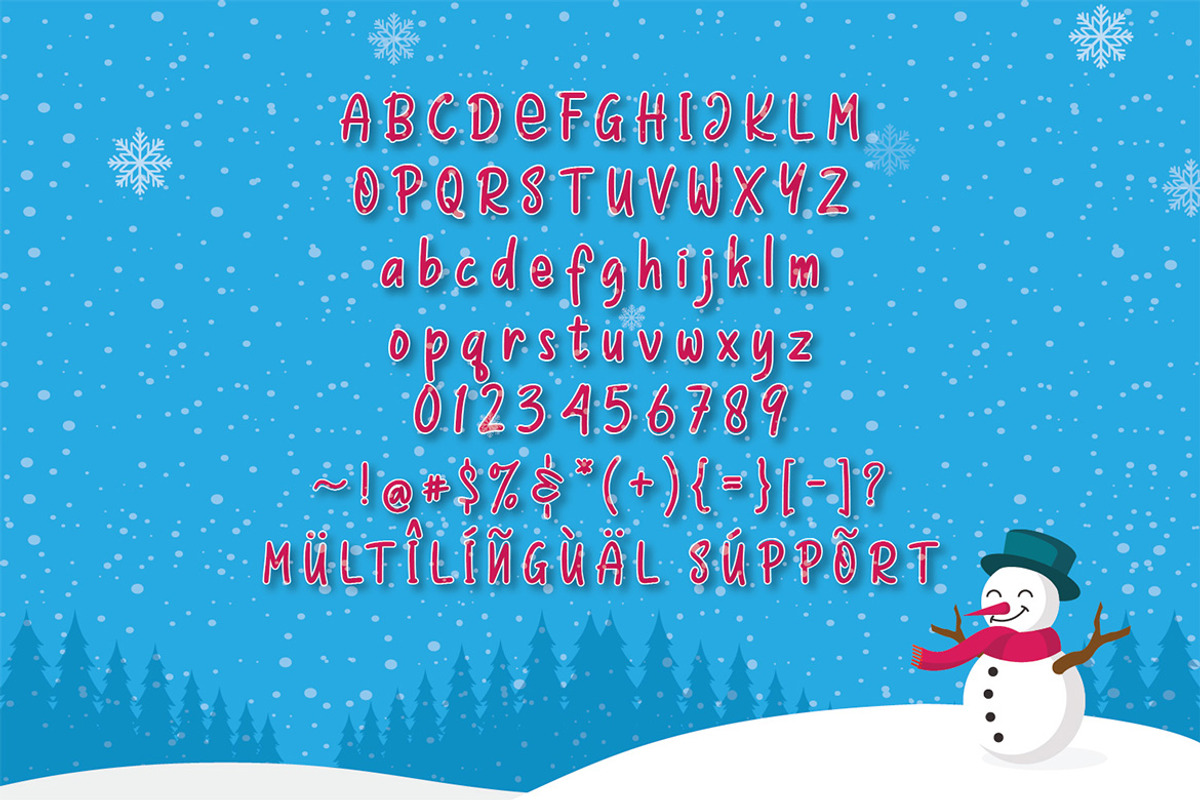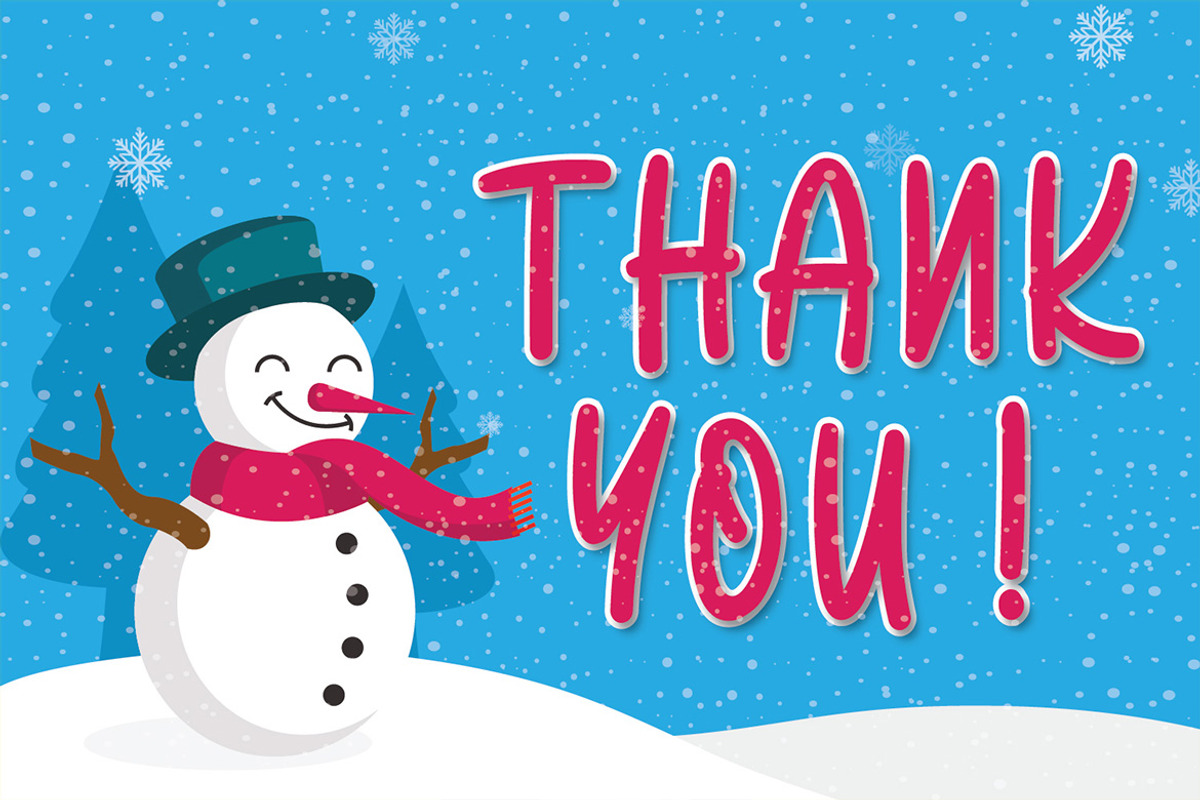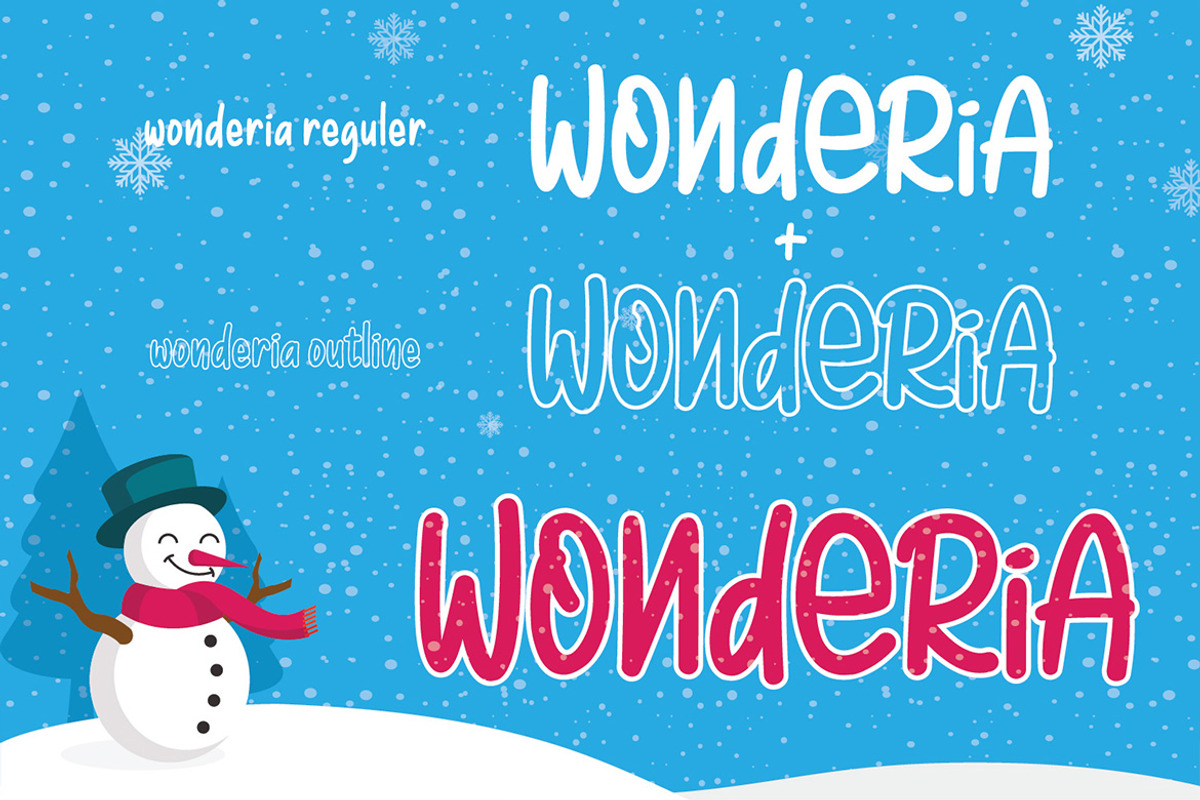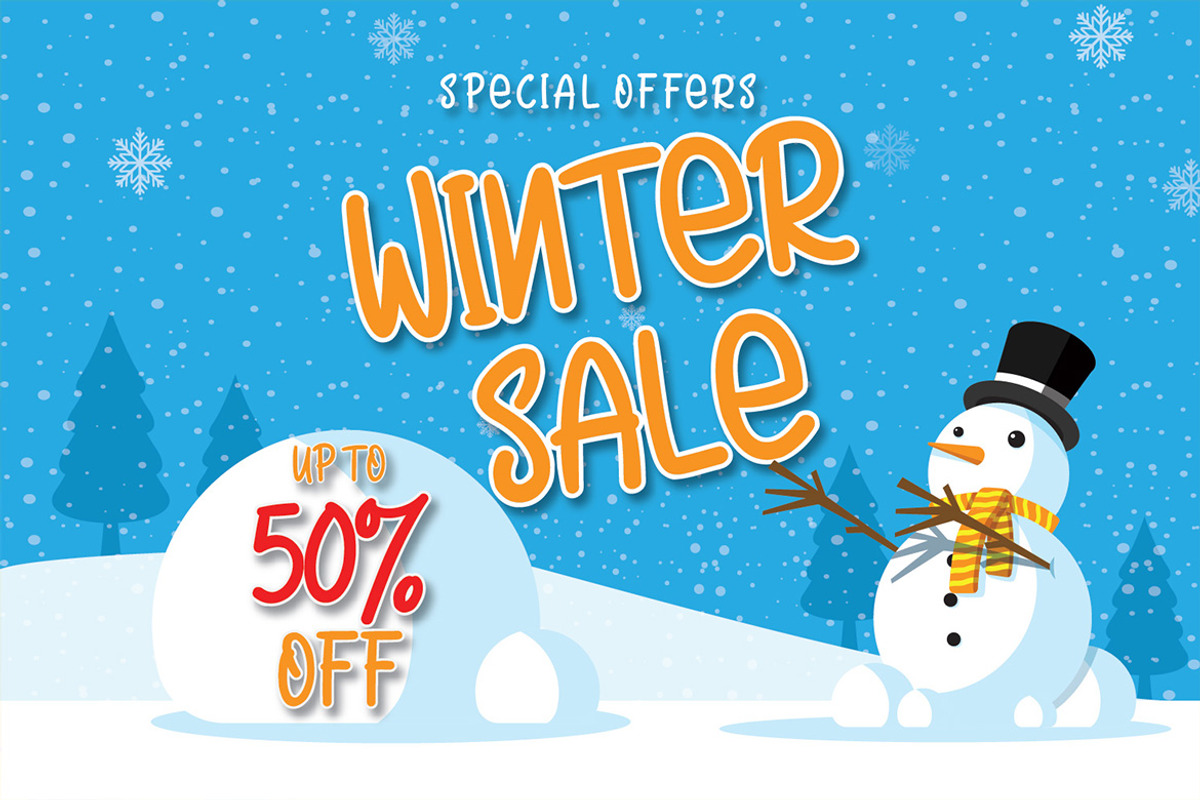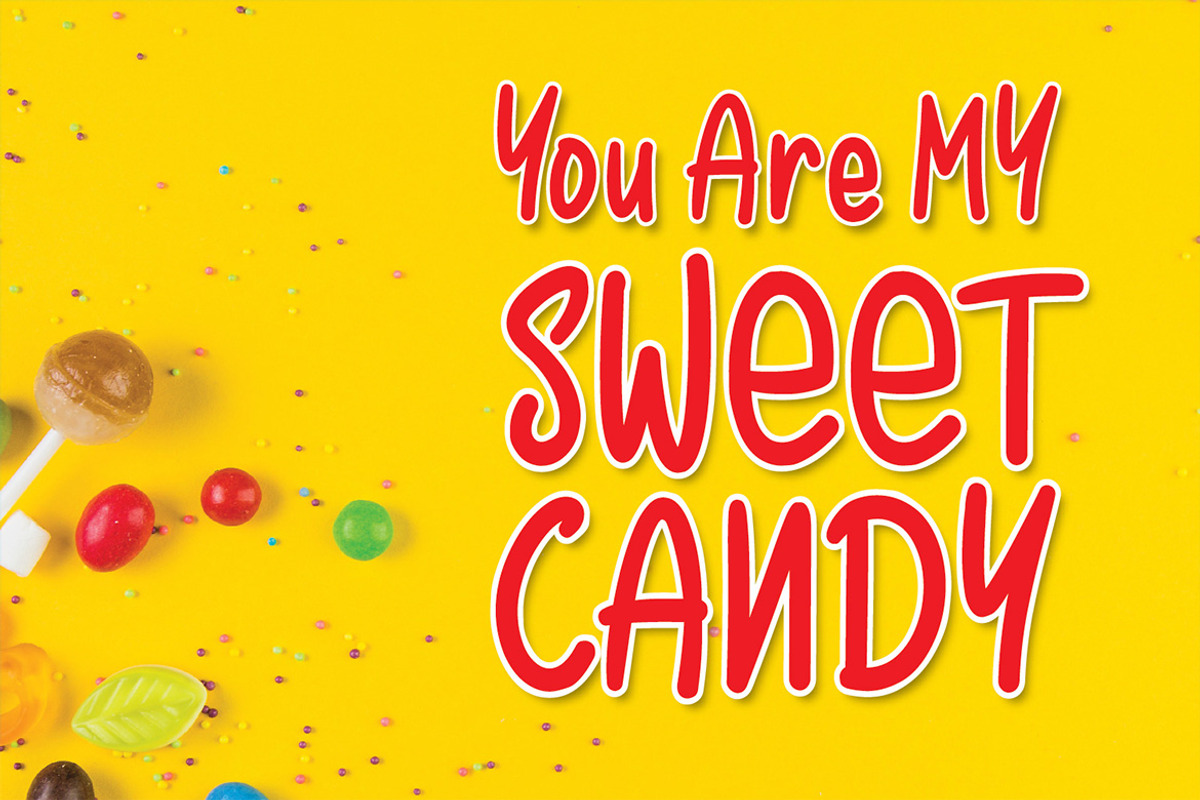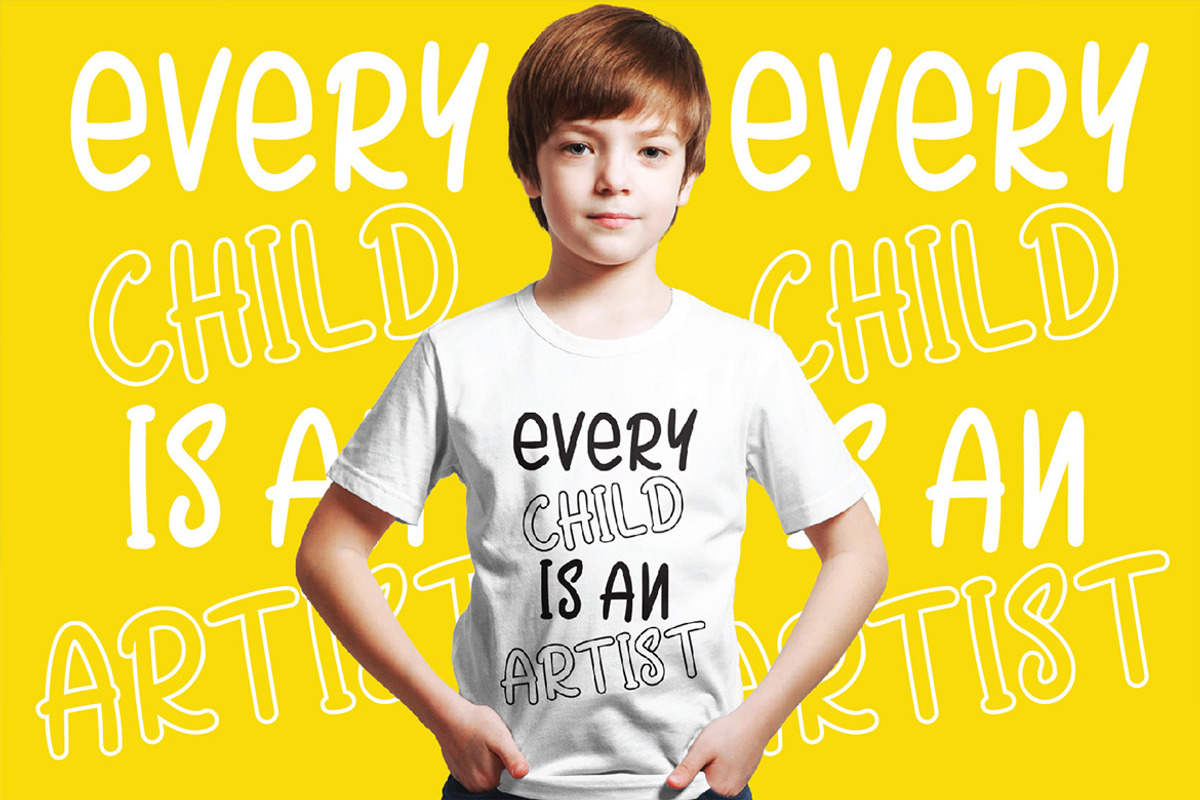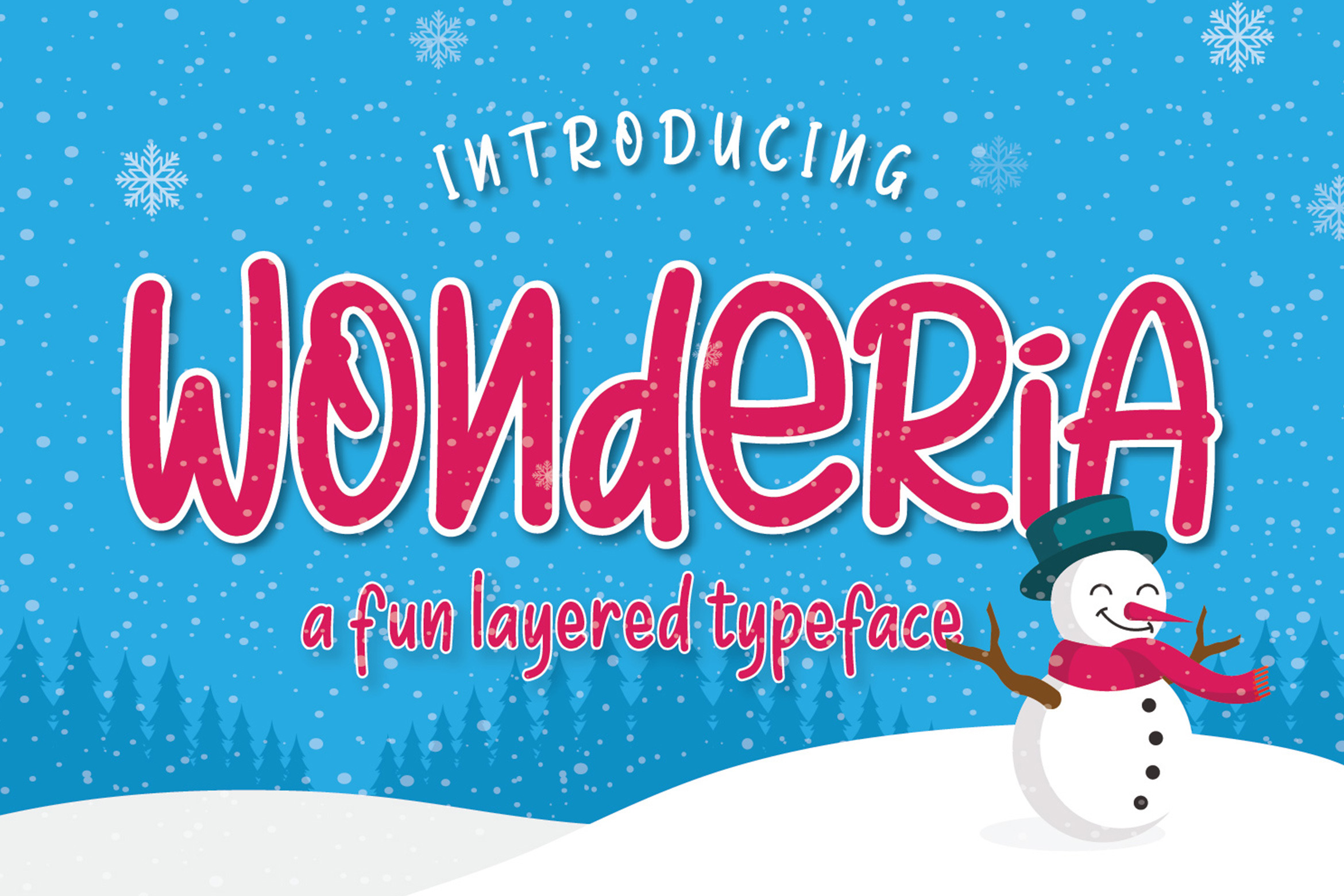
Wonderia | Display Font
Wonderia is a fun display typeface with layered.comes with two versions of wonderia regular and wonderia outline . very suitable for quotes, greeting cards, posters, etc.